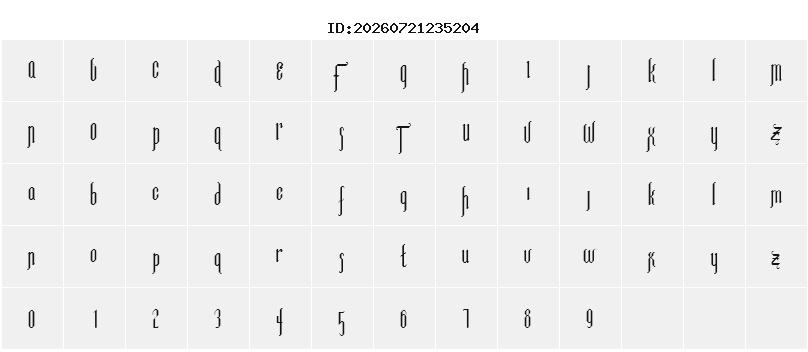
About FZ JAZZY 35.ttf
FZ JAZZY 35.ttf is a modern, elegant sans-serif font designed for ultimate readability and visual harmony. Perfect for branding, headlines, web design, and print materials.